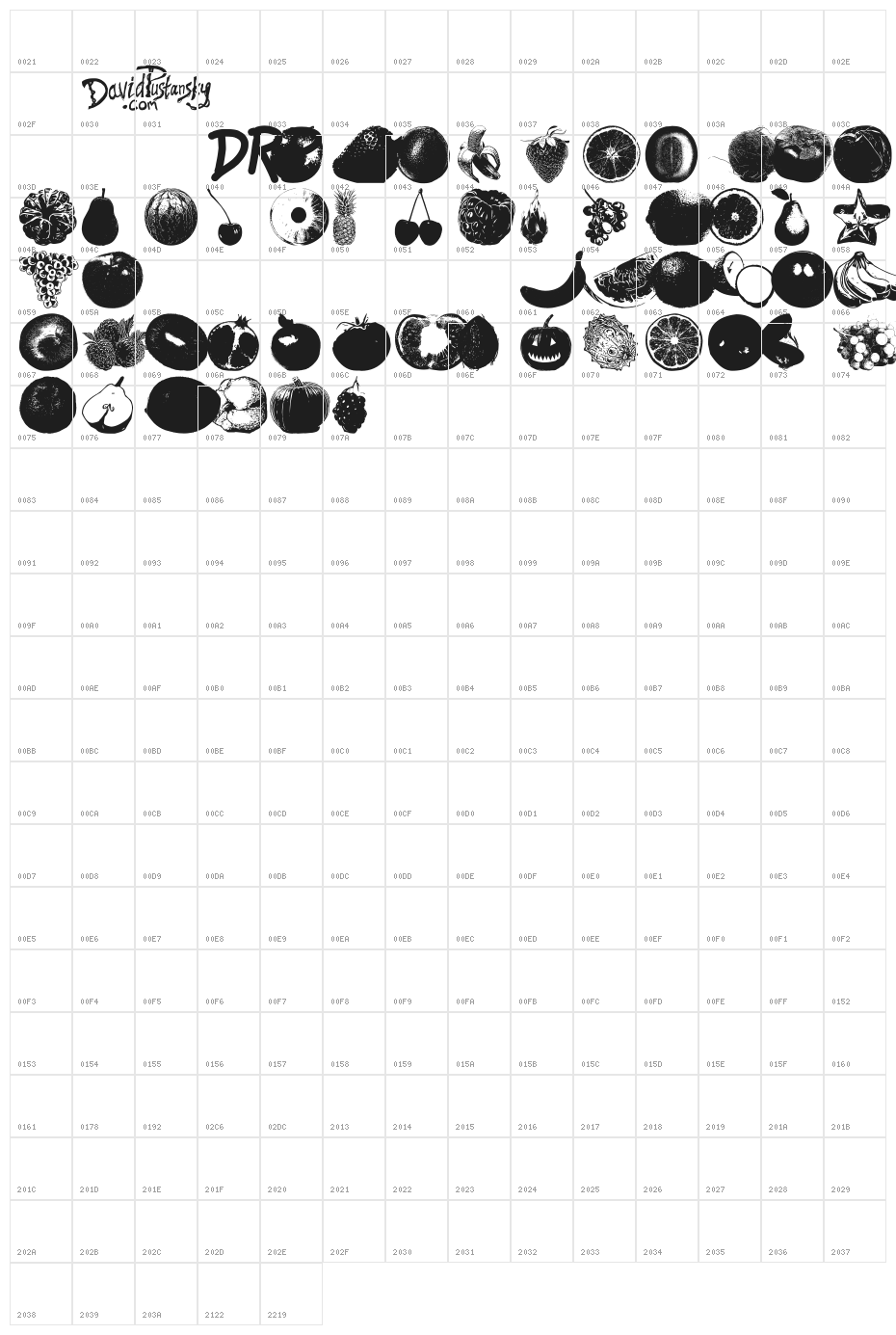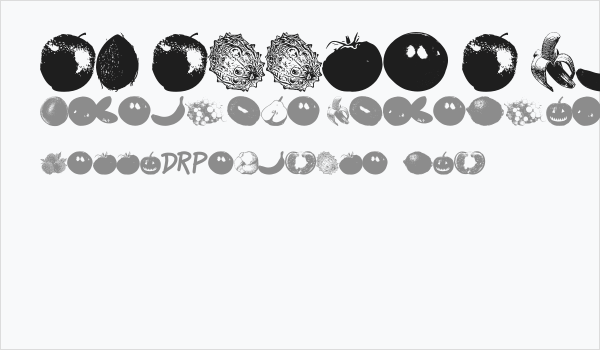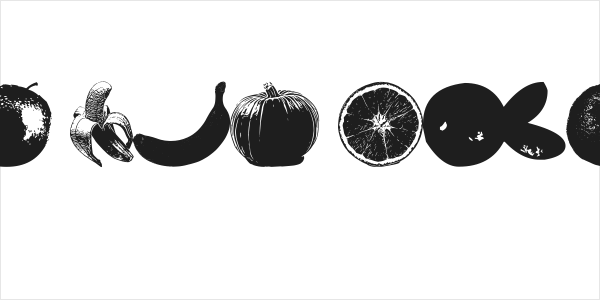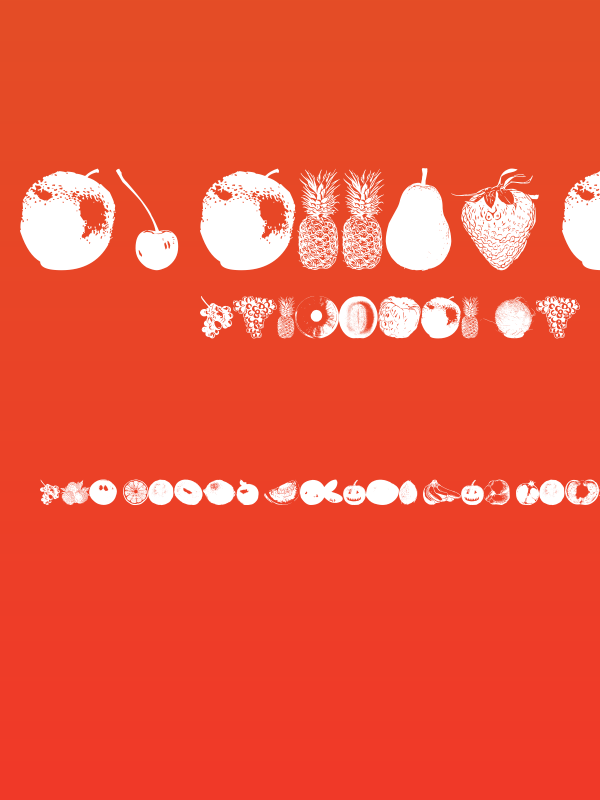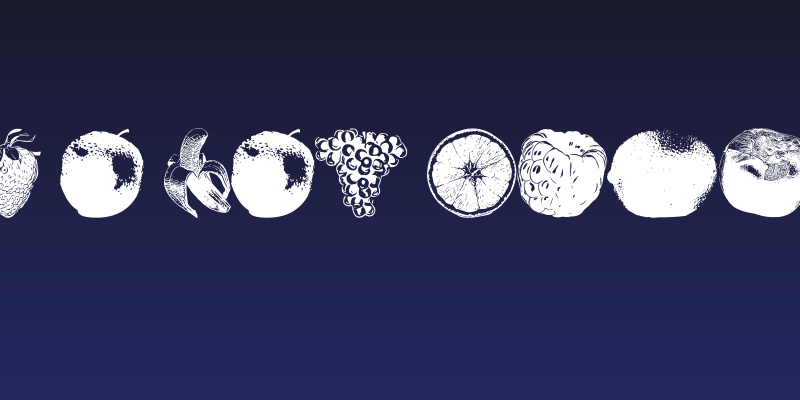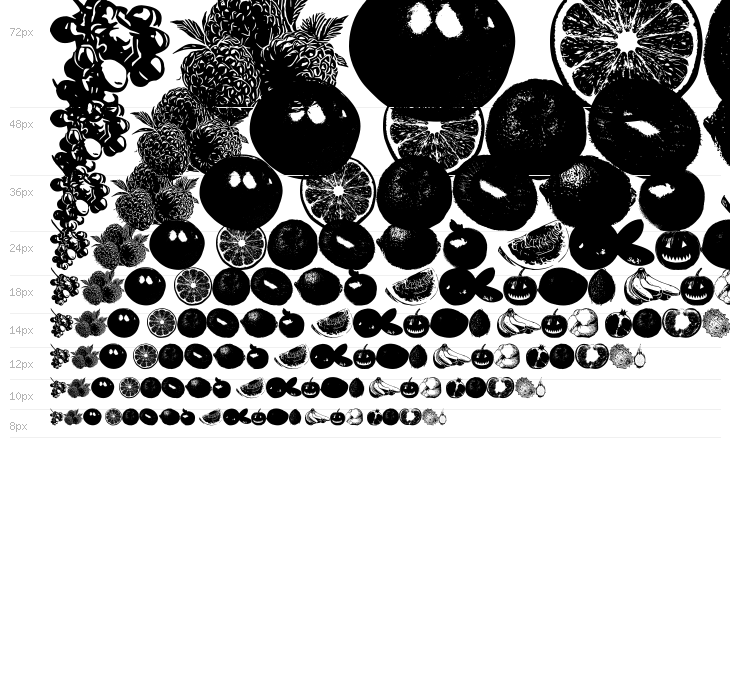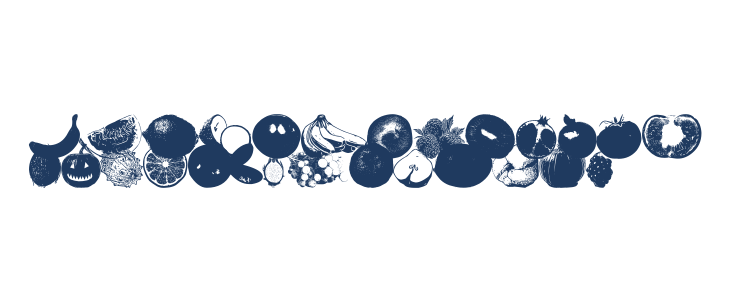
An Apple A Day Fruit Font Font
An Apple A Day Fruit Font Description
This unique and playful font is composed entirely of fruit illustrations, each character represented by a different fruit. The design is highly creative, with each letter and number taking the form of a distinct fruit, such as apples, oranges, bananas, and more. The characters are detailed and realistic, showcasing the textures and shapes of various fruits. This font is perfect for projects that require a fun and whimsical touch, particularly those related to food, health, or children's themes. The artistic style is both eye-catching and engaging, making it suitable for a wide range of creative applications.
| Use Case | Logos, Headlines, Creative Displays |
| Proposed Projects | Ideal for children's books, food packaging, health-related campaigns, and playful branding. |